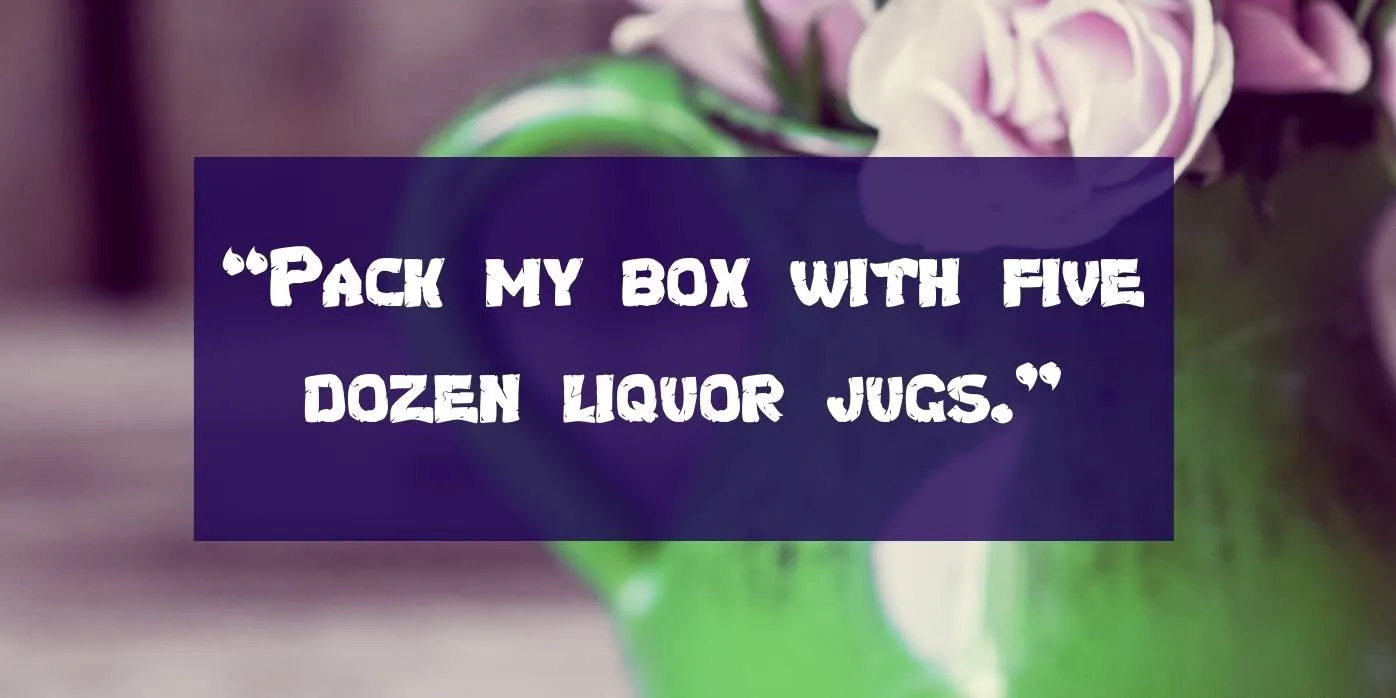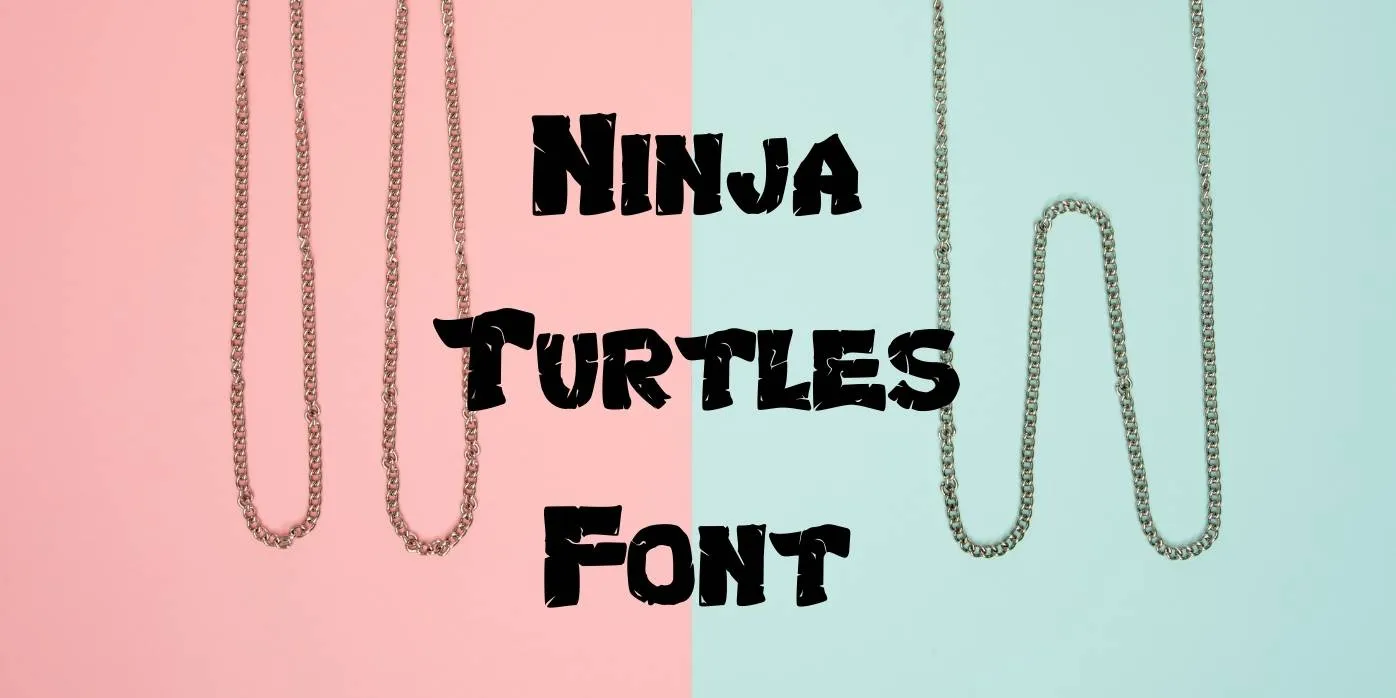
Ninja Turtles Font
Today, we are going to present a modern and famous typeface that was known by the name Ninja Turtles Font. This particular font was remarkably created for the movie title of Teenage Mutant Ninja Turtles. Kevin Eastman and Peter Laird are known to be the designers of this movie. This typeface was developed by Xerographer Fonts.
It belongs to the Fancy Fonts. The designers have put their great efforts to make this font family unique and different from others. The design of this font family is based on the logo of the movie title. In this way, it looks attractive and stylish.